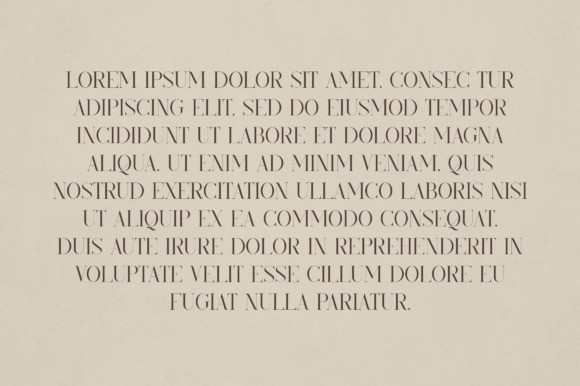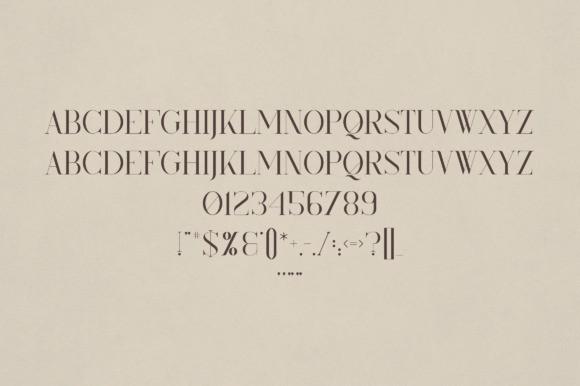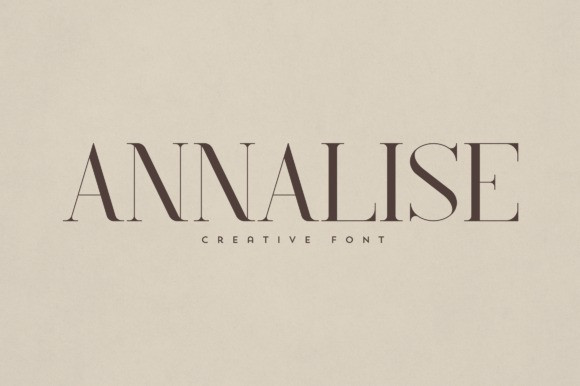
Annalise Font
Annalise Font is an elegant and versatile serif font that will make your typography truly unique! It will enchant every logo, branding, headline, or plain text!